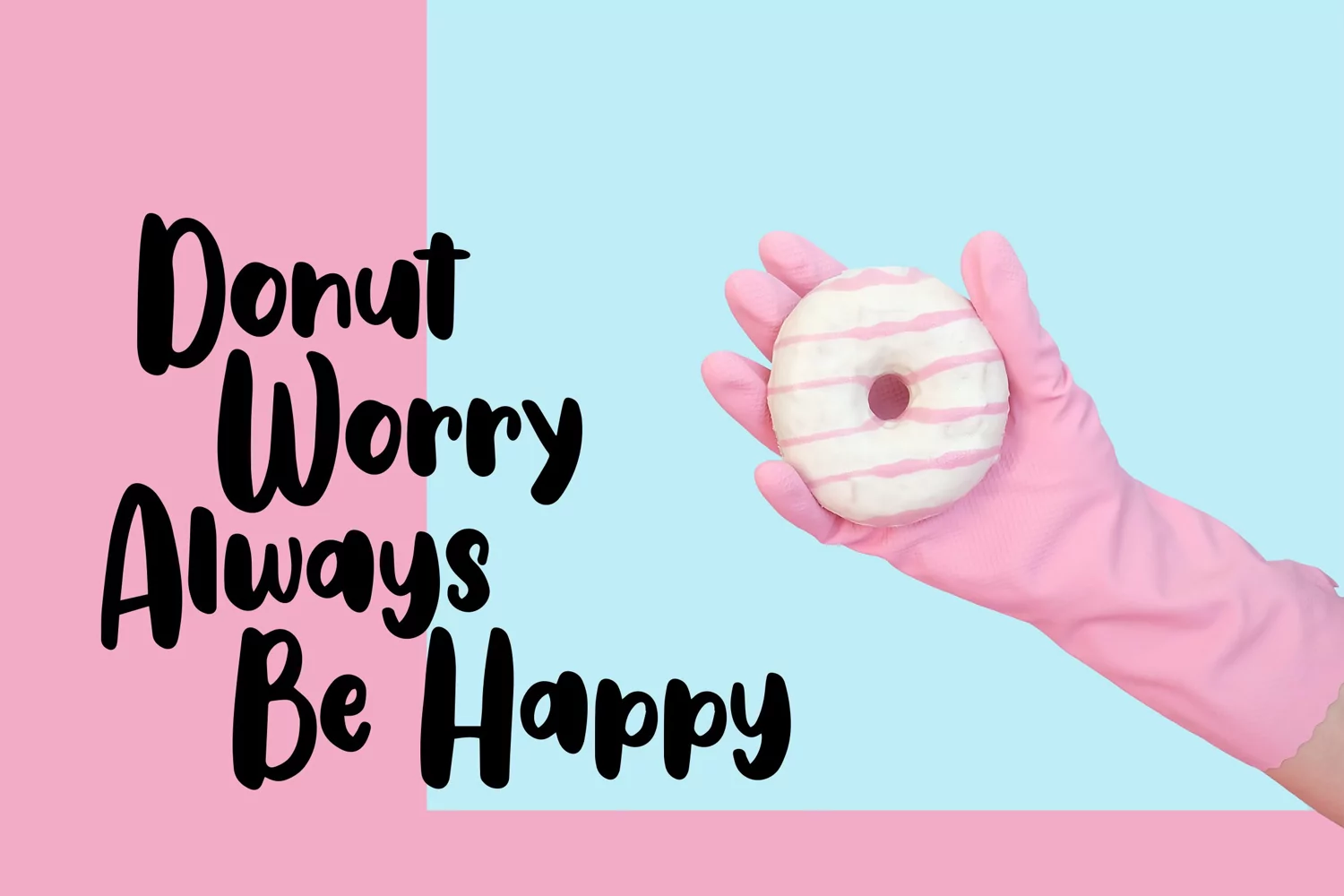
Gullali - Sweet Bulky Font that contain lowercase, uppercase, symbol, and also support multi language. There’s a lot ligatures in this font. This Font also comes with ligatures, alternates and many more. this font suitable for fashion, branding, catalog and other design what you want.
Gullali